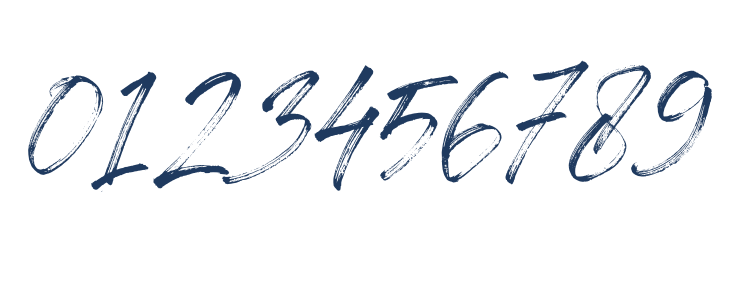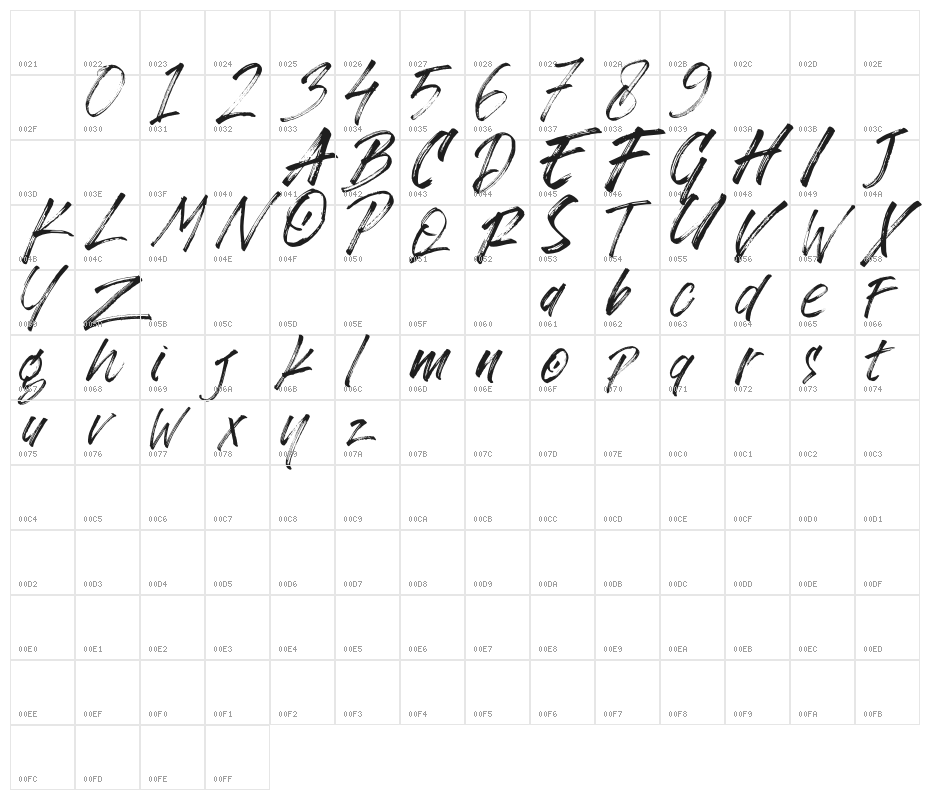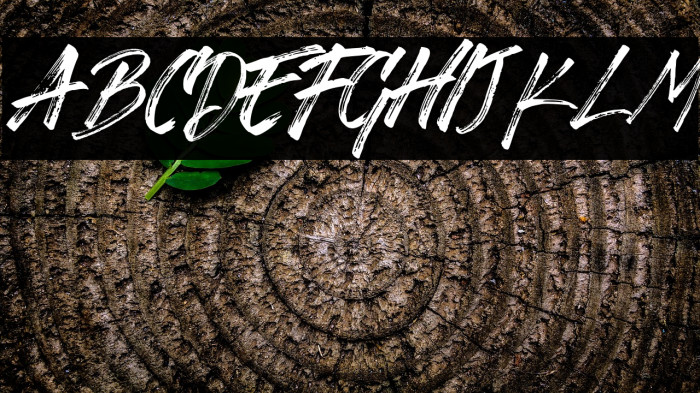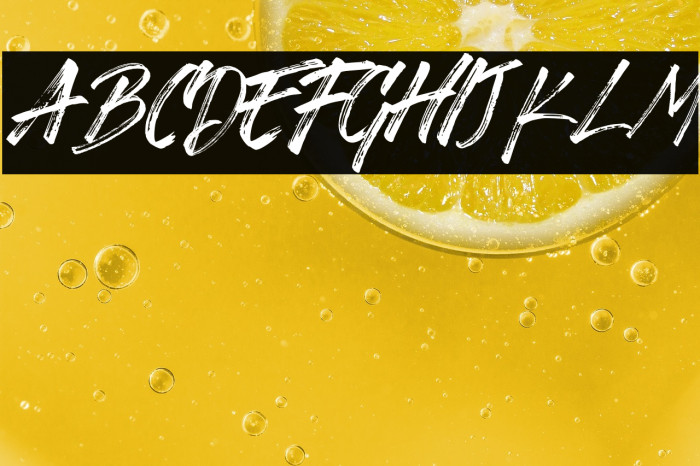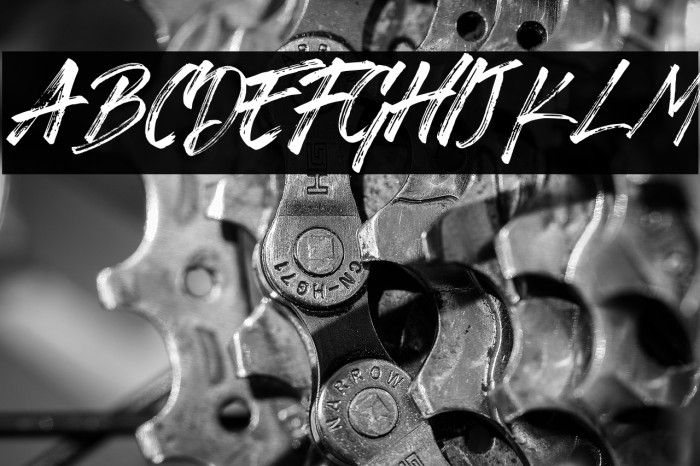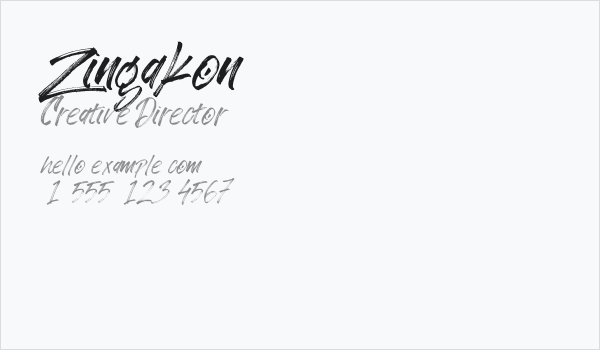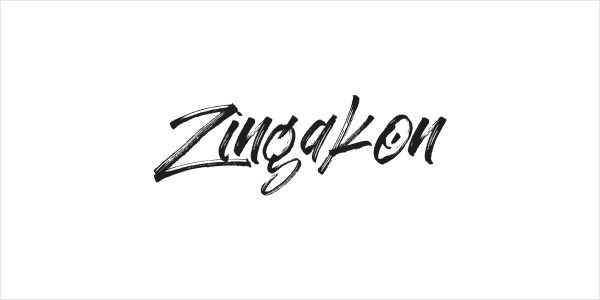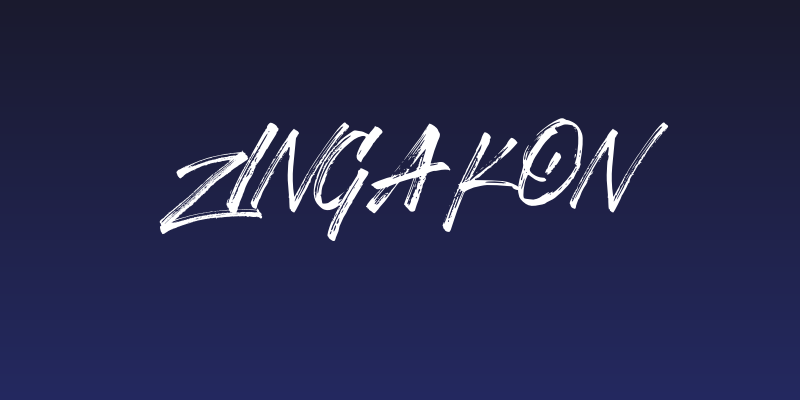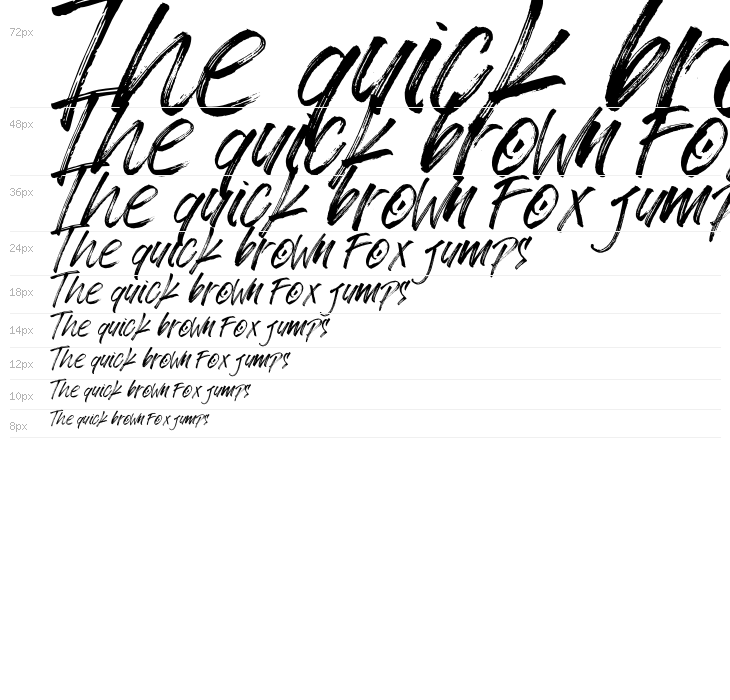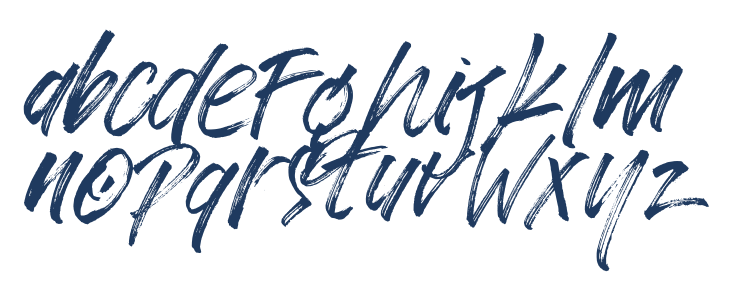
Zingakon Font
Zingakon Description
This expressive and dynamic font features a bold, brushstroke style that exudes energy and creativity. The letters are crafted with a sense of movement, characterized by thick and thin strokes that vary in width, giving it a hand-painted appearance. The uppercase and lowercase letters maintain a consistent style, with a slightly slanted orientation that adds to its casual and artistic flair. The numbers and special characters follow the same design principles, ensuring a cohesive look across all elements. This font is perfect for projects that require a personal touch or a bold statement, such as branding, posters, and artistic designs.
| Overall Style | Artistic, Dynamic |
| Proposed Projects | Ideal for branding, posters, artistic designs, and any project needing a bold, personal touch. |